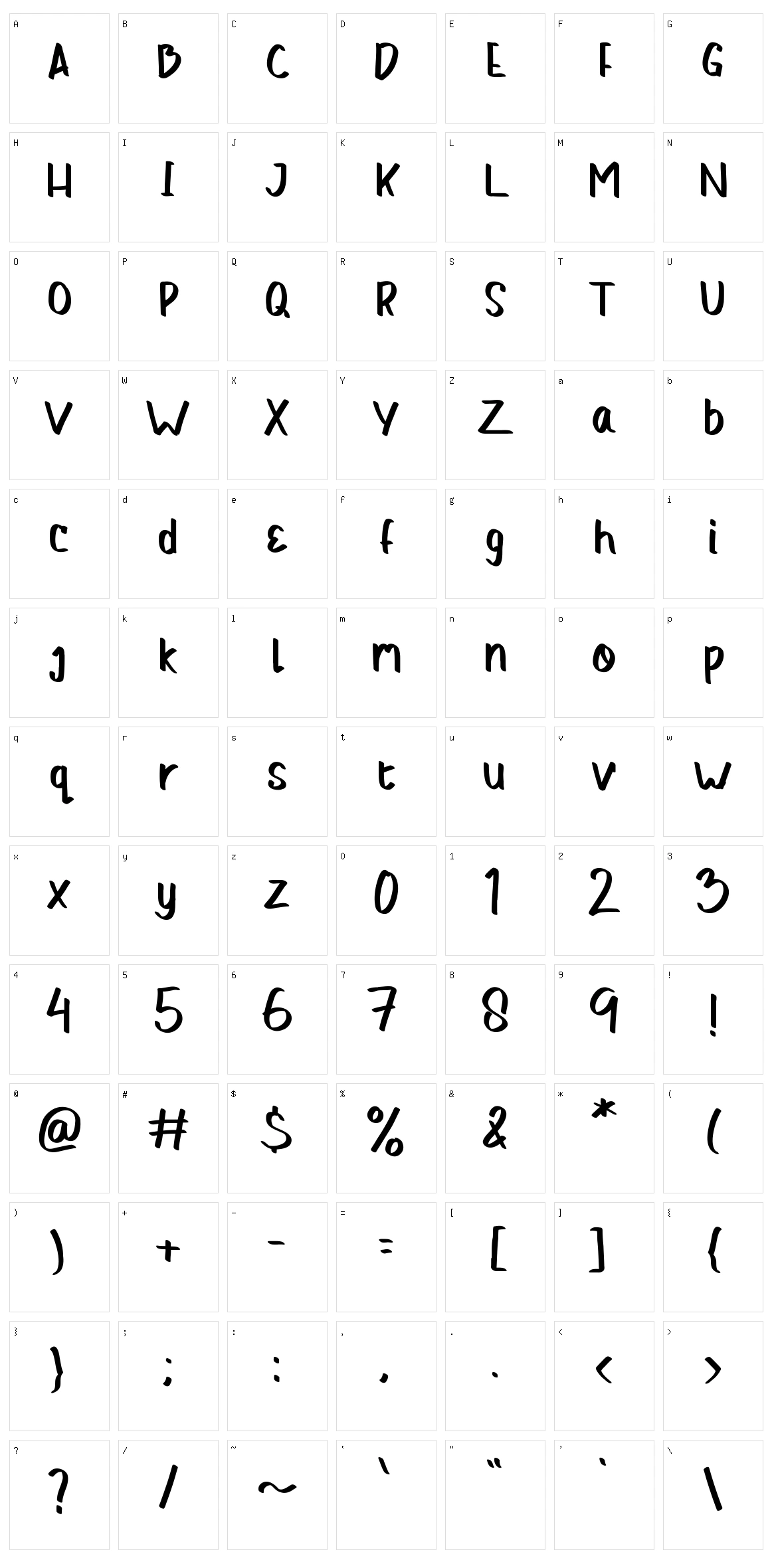
The free font Bellacy is carefully designed by Edwin Prayogi M, showcasing a thoughtful balance of creativity and usability and falls under the Script font style. When you download the ZIP file, it contains only 27.16 KB of font files, making it lightweight and quick to download. Please review the license details below to understand permitted usage and distribution rights. If license information is not available, we recommend using this font for personal projects only or contacting the author directly for commercial usage permissions.